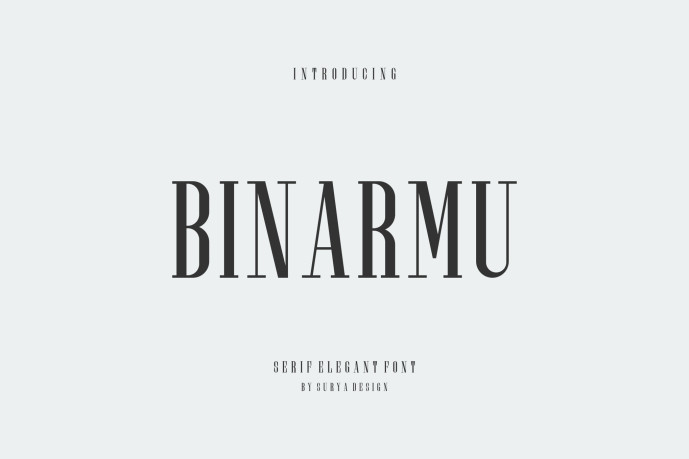
Binarmu Serif Elegant Font
Designer: suryadesign0
Binarmu Font– Modern Font is a bold and authentic display font. The font is suitable for any branding project like logo, esport, and many more. outstanding in a wide range of contexts.